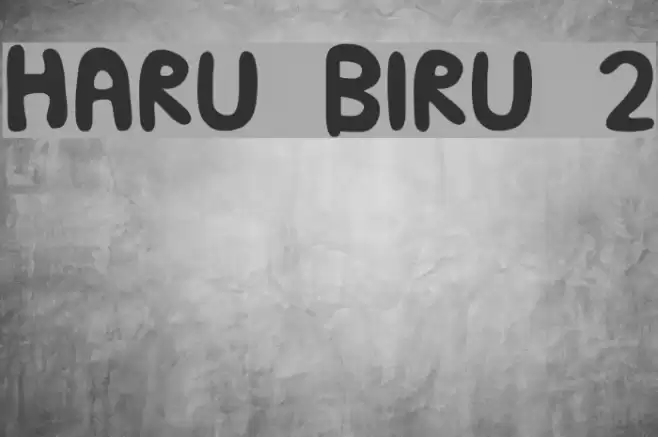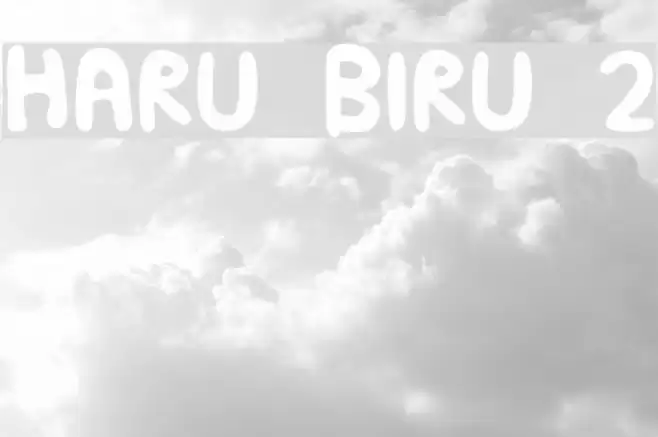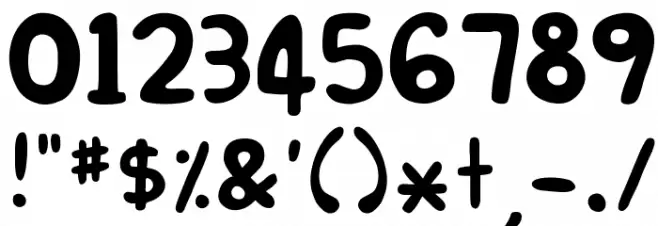
HARU BIRU 2 Font
HARU BIRU 2 Description
This playful and bold font features rounded, bubbly characters that convey a sense of fun and approachability. The uppercase and lowercase letters maintain a consistent style, with slightly exaggerated curves and a hand-drawn appearance. The numbers and special characters follow the same design principles, ensuring a cohesive look across all elements. The font's thick strokes and rounded edges give it a friendly and informal vibe, making it suitable for projects that aim to be engaging and lighthearted. Its unique style stands out, making it ideal for attention-grabbing designs.
A playful, bold font with rounded, bubbly characters and a hand-drawn feel from Uncategorized fonts.
- Proposed Projects: Ideal for children's books, playful branding, casual invitations, and fun social media graphics.
- Overall Style: Playful, Informal